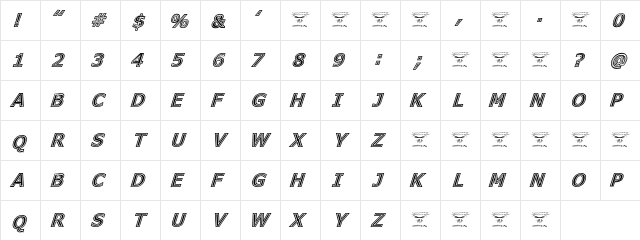
Genesee St Italic
Design Context for Genesee St Typeface
Genesee St is a composed and adaptable typeface that performs quietly and consistently across a wide range of design contexts. The dynamic lean of this cut emphasises speed and emphasis in any layout.
Pro Tip: Use Genesee St for emphasis, pull quotes, and subheadings where its slanted energy can add rhythm to the layout.